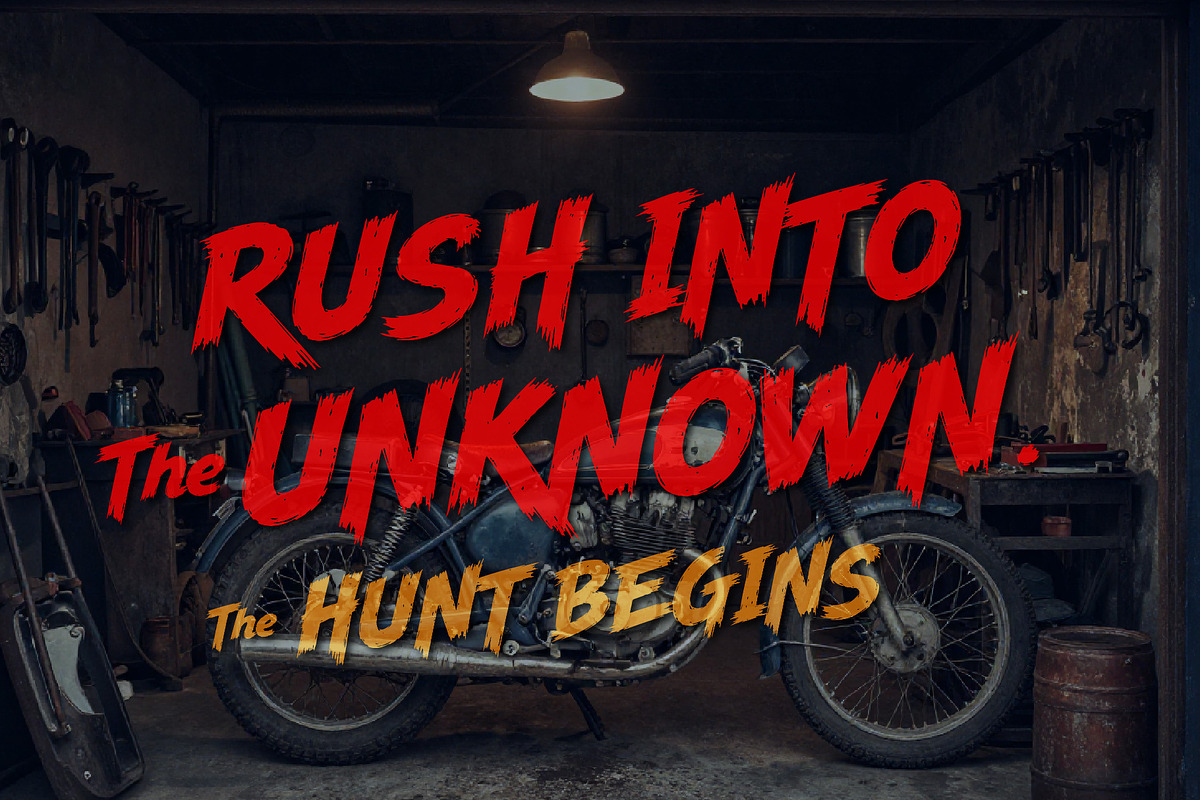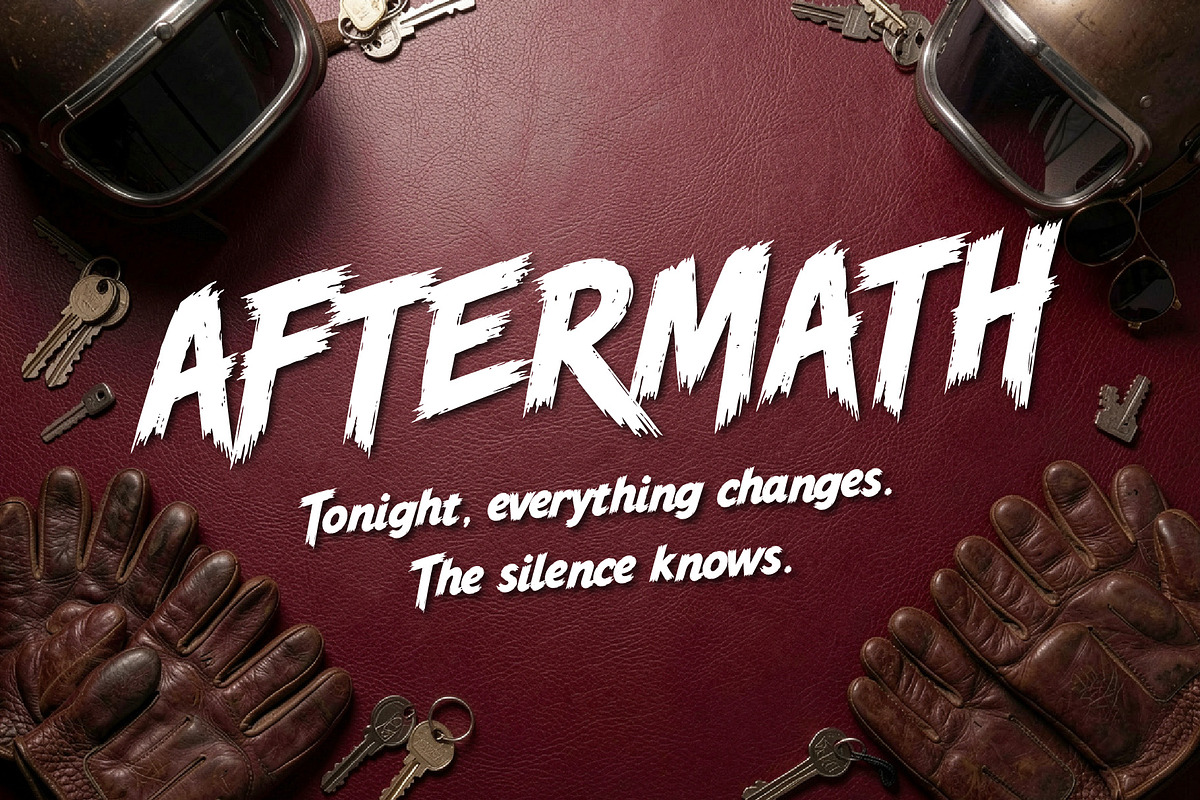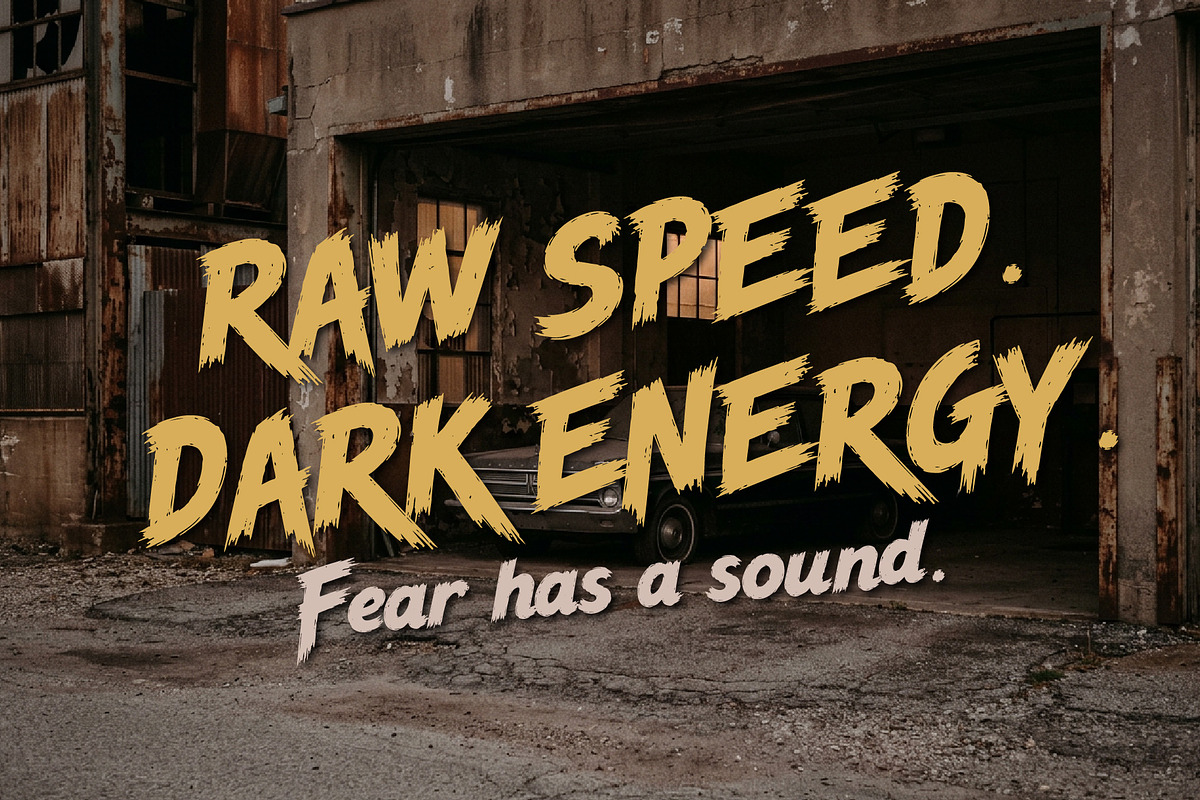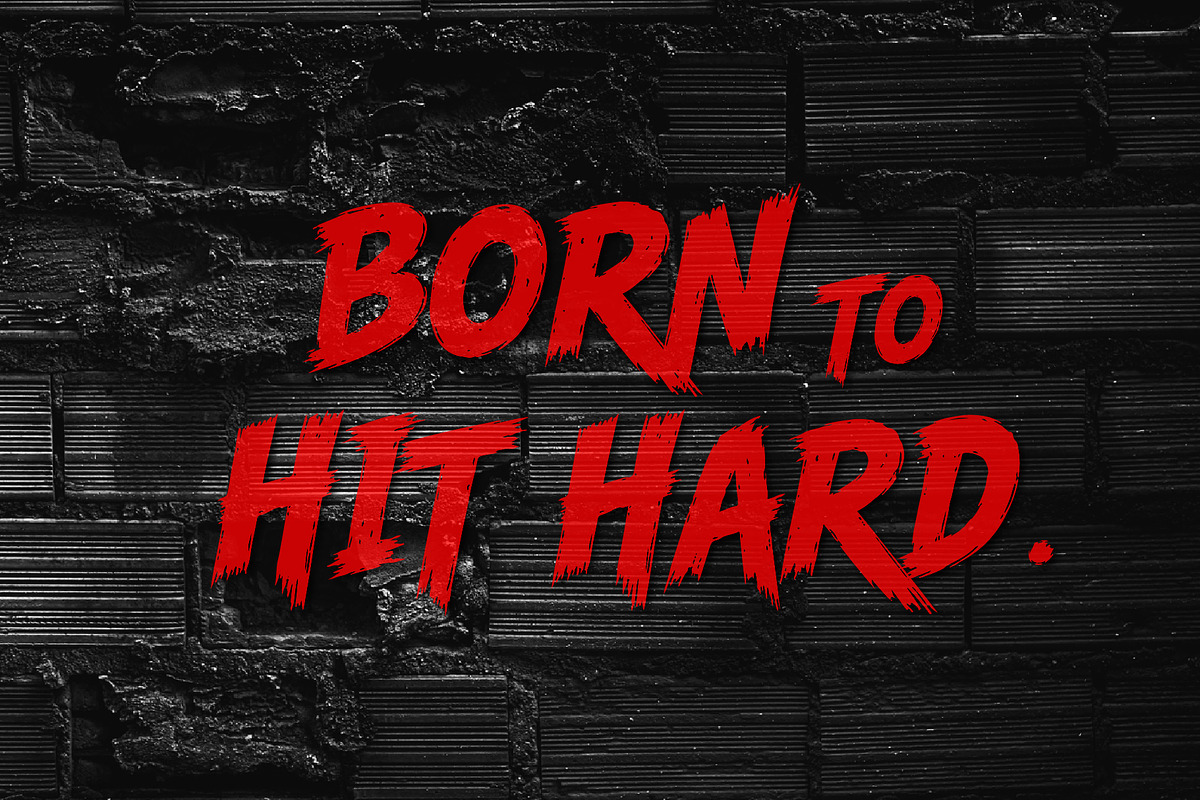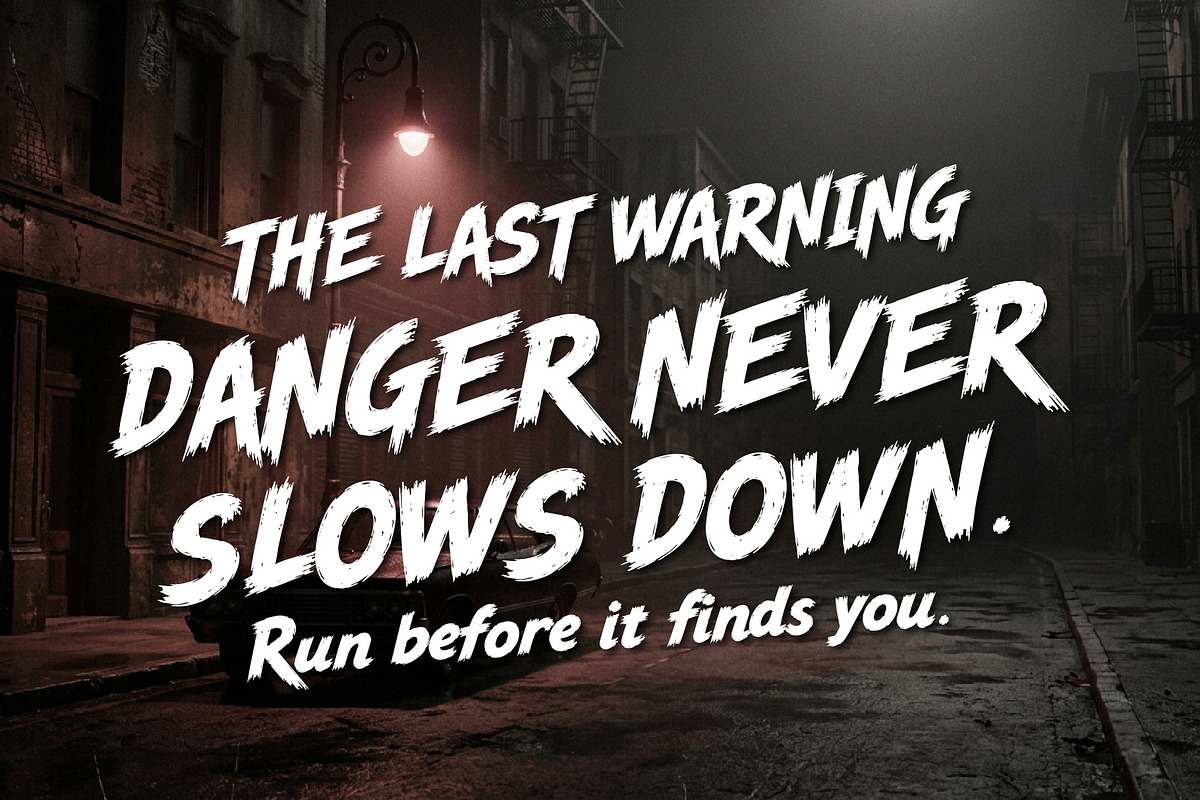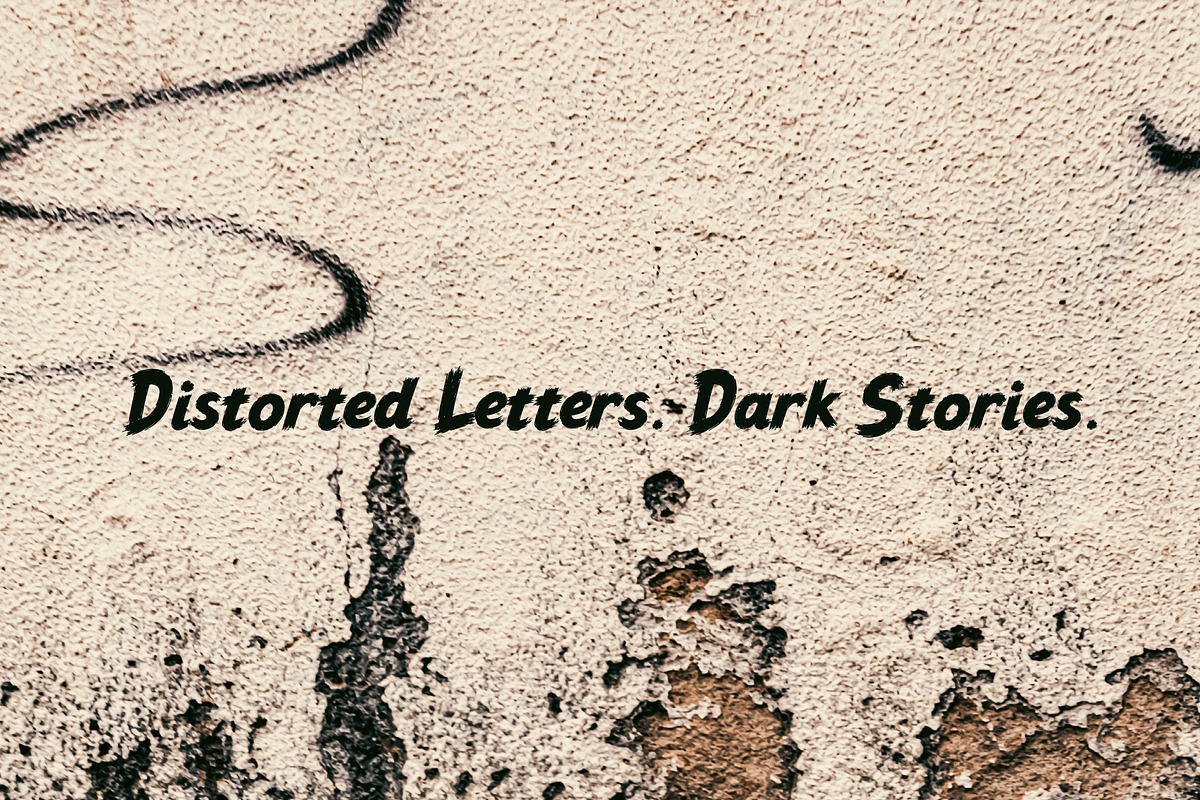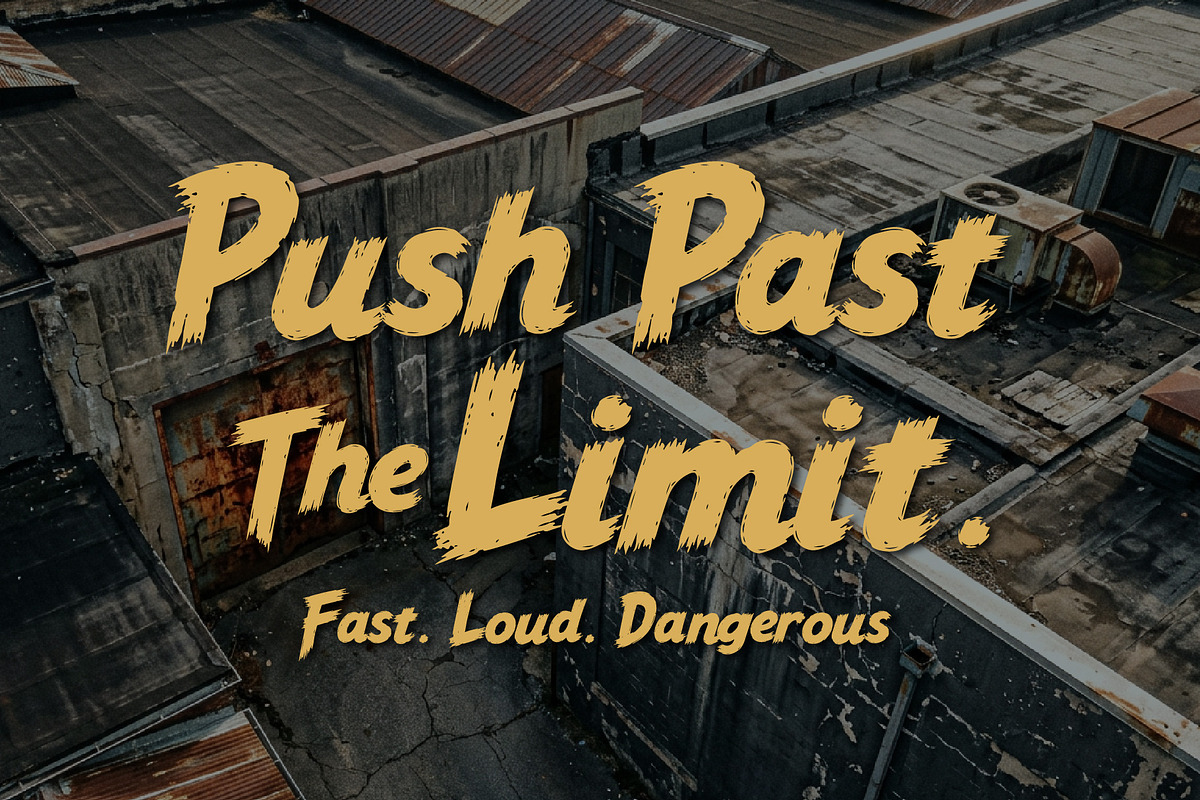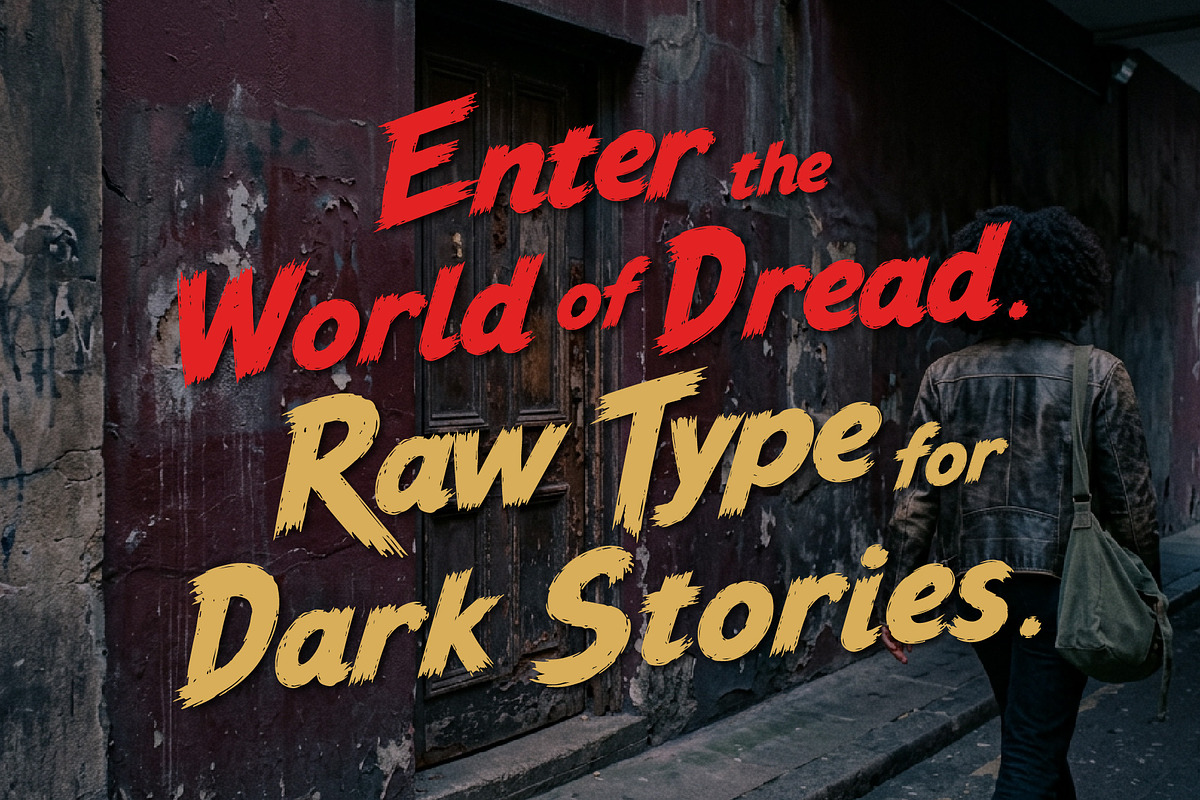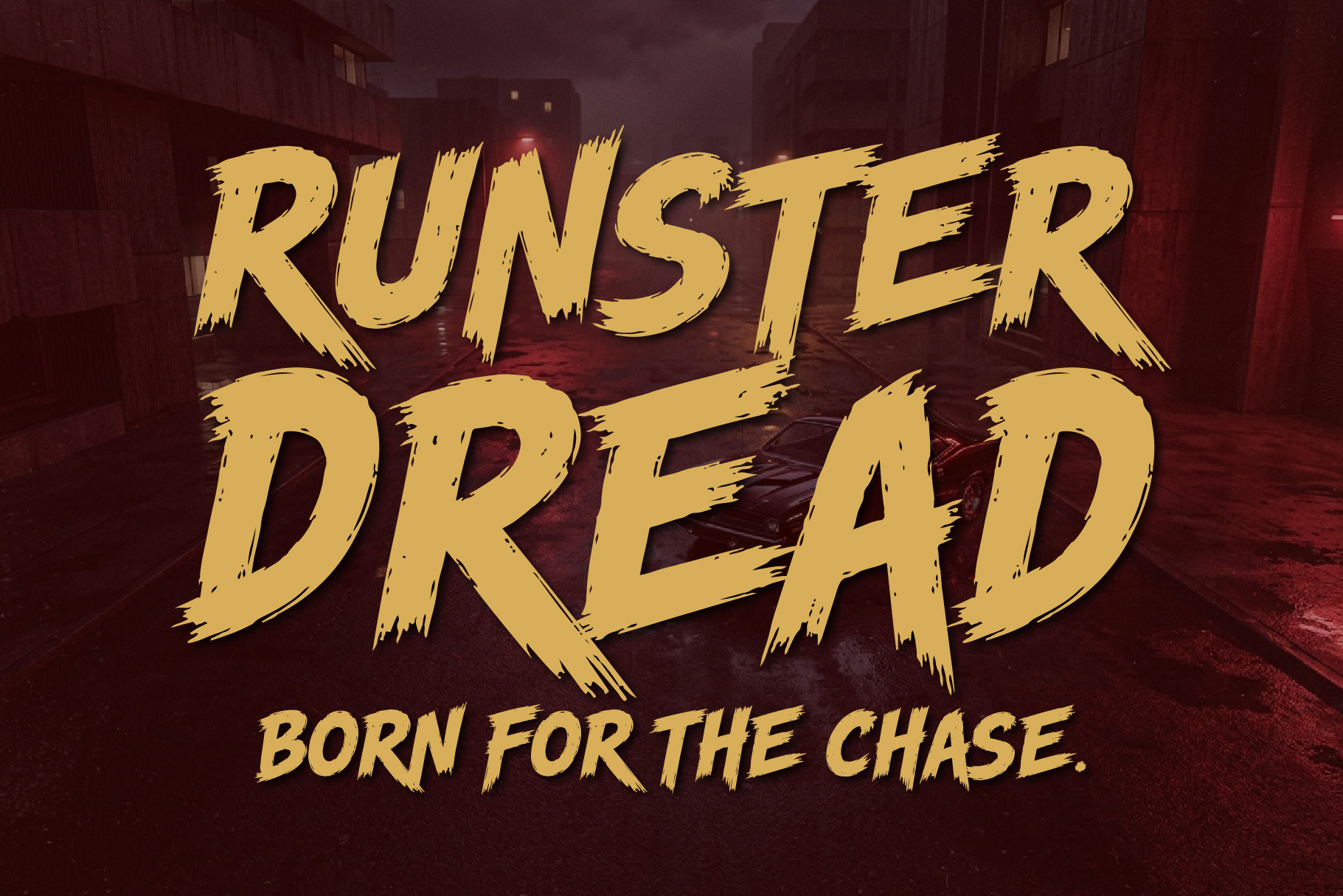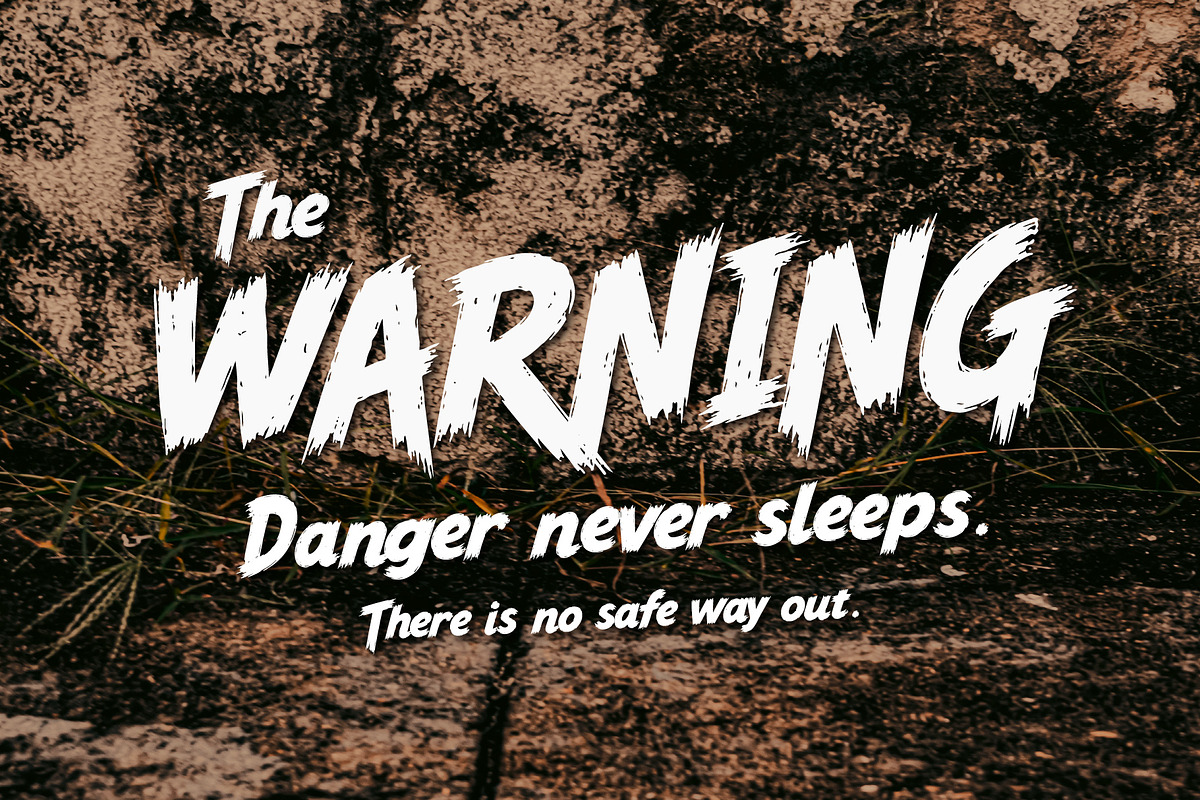
Runster Dread - Raw Intense Font
Runster Dread is a raw and intense grunge display font built for action, thriller, mystery, and horror-inspired designs. Its distressed texture, bold shapes, and rugged character bring an atmosphere of danger, suspense, chaos, and dark cinematic energy.
Perfect for movie posters, horror titles, thriller covers, game artwork, music branding, event posters, apparel, album covers, logos, social media graphics, and dramatic headlines. Runster Dread is made to give your typography an immediate sense of tension and attitude.